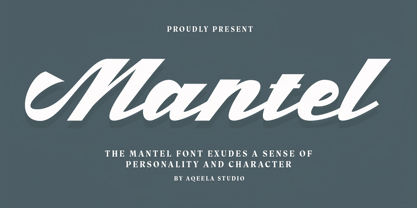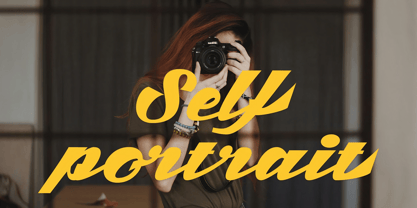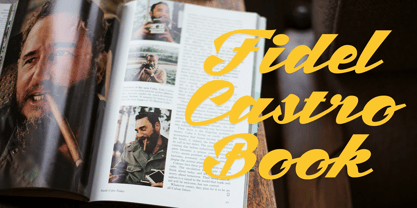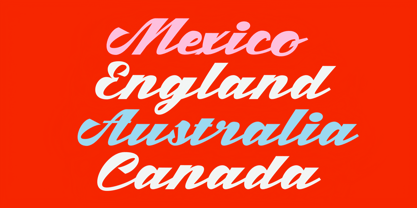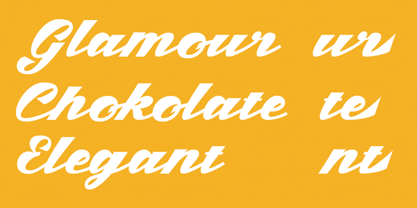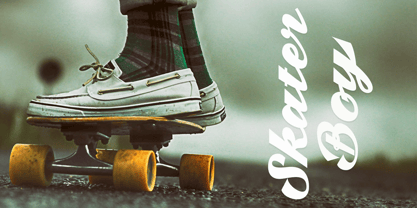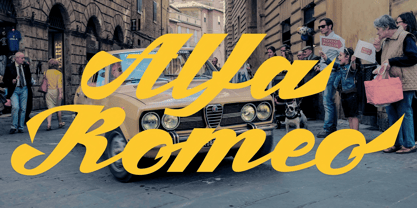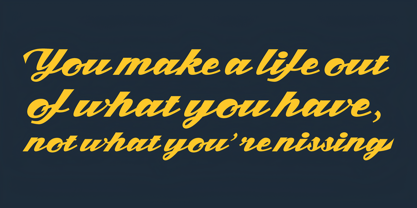
Mantel
La familia tipográfica Mantel fue diseñada por Muhammad Nasir y publicada por Aqeela Studio. Mantel contiene 1 estilos. Más información sobre esta familia
Mantel is a handcrafted font that exudes a sense of personality and character. Its flowing curves and confident strokes evoke a vintage charm, reminiscent of classic signage and handwritten lettering. The font's bold weight gives it a strong presence, making it perfect for headlines, logos, and any design that demands attention. Whether used for a retro-inspired brand or a modern project seeking a touch of vintage flair, Mantel adds a unique and stylish touch.